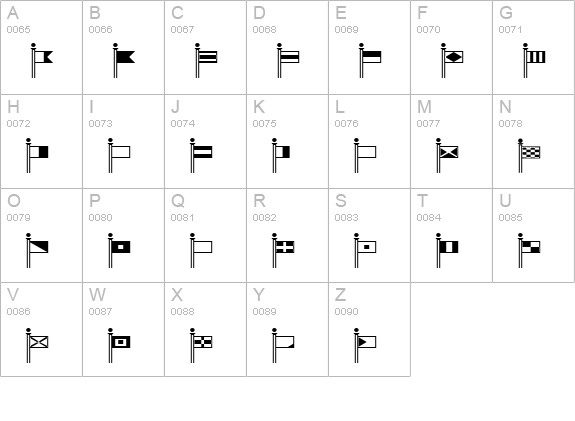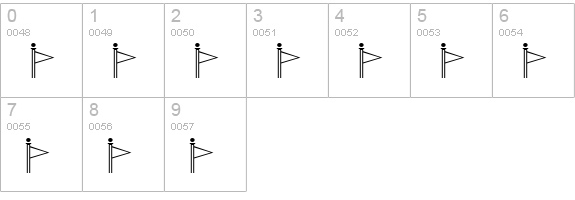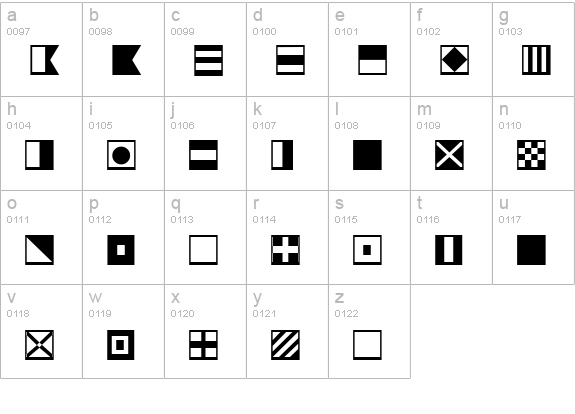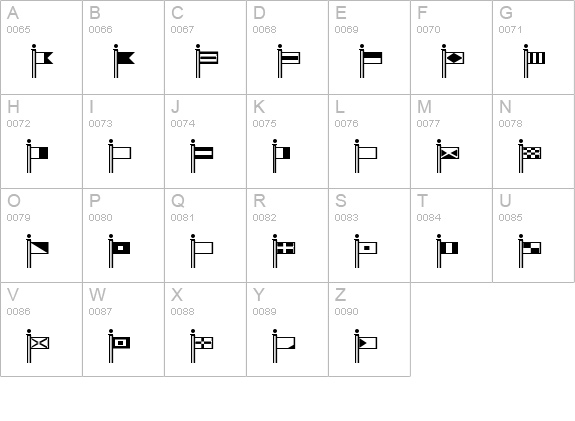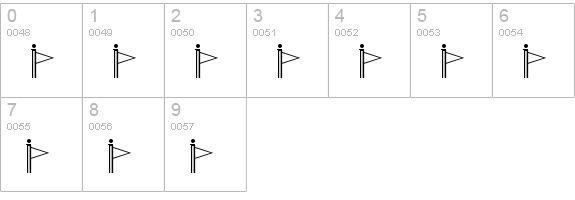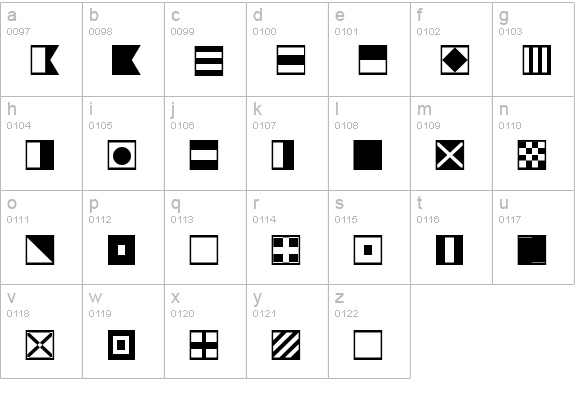
SignalFlags Font Details
SignalFlags font is a stunning and versatile typeface that is perfect for adding a touch of maritime charm to any design project. This unique font draws inspiration from the colorful flags used to communicate messages at sea, bringing a sense of nautical nostalgia to your typography. With its bold and vibrant letterforms, SignalFlags font captures the essence of maritime communication in a visually striking way. Each letter is meticulously designed to resemble a signal flag, with its own distinct shape and color. Whether you want to spell out an entire word or simply use a single flag as a decorative element, this font offers endless possibilities. One of the best things about SignalFlags font is that it is completely free to download at FontsMarket.com. This means that you can easily add this exceptional typeface to your collection without any cost. The font file is readily available and can be downloaded with just a few clicks, giving you instant access to this remarkable design resource. Whether you are creating a logo for a beach resort, designing an invitation for a nautical-themed event, or simply want to add a touch of maritime flair to your personal projects, SignalFlags font is sure to impress. Its eye-catching and unique style will make your text stand out and grab attention. So why wait? Explore the world of maritime communication with SignalFlags font. Download it for free today at FontsMarket.com and unlock the endless possibilities it offers for your design projects.